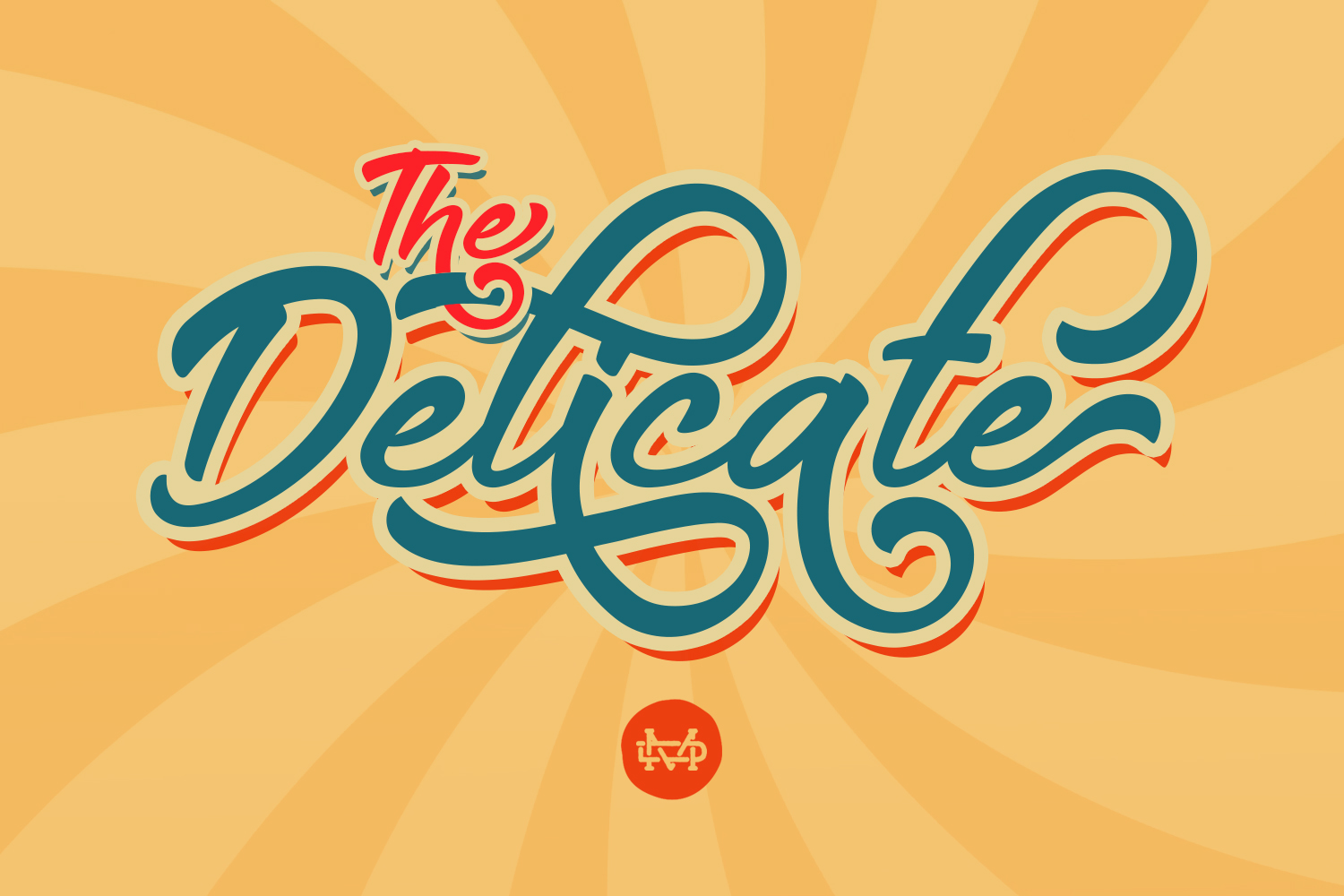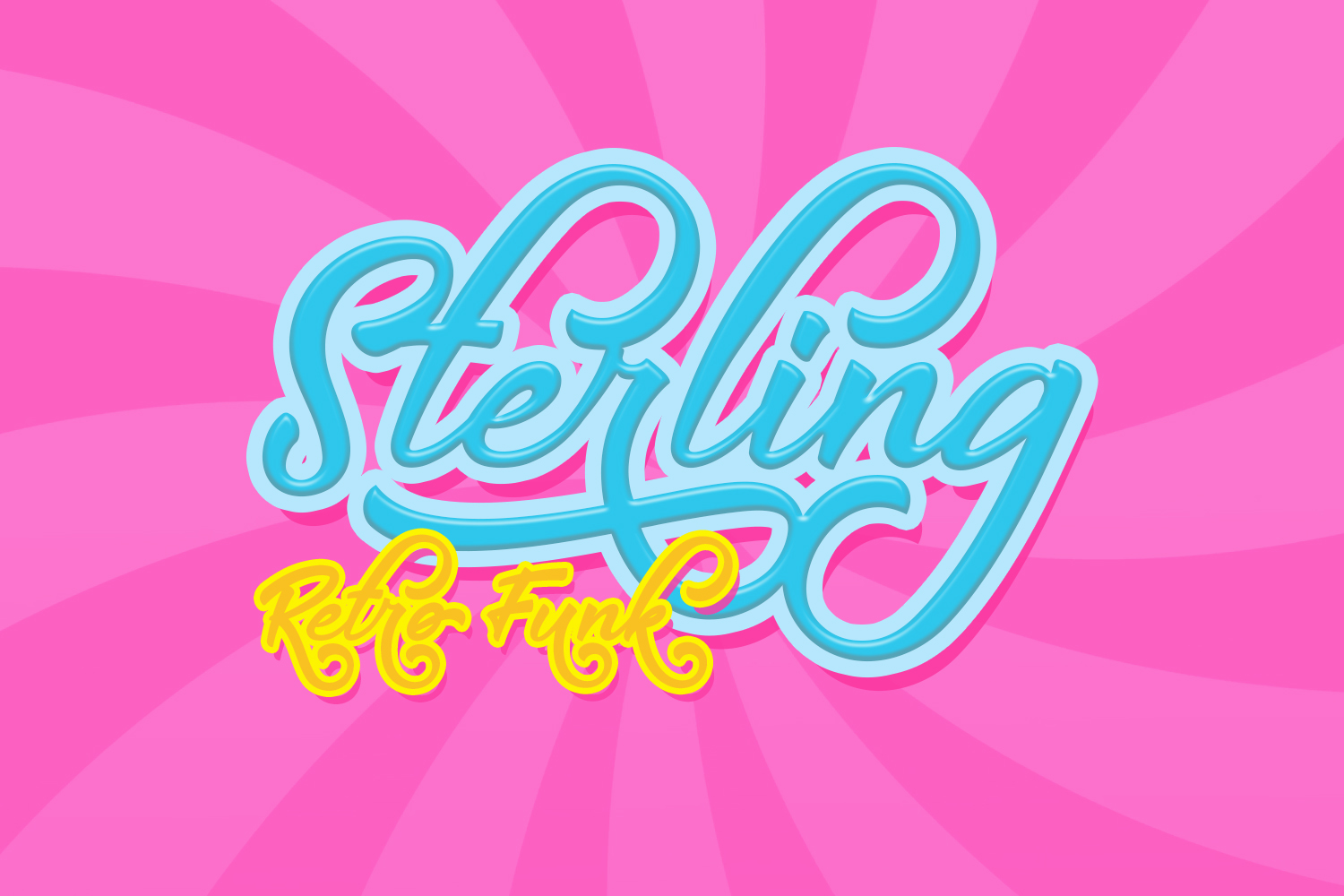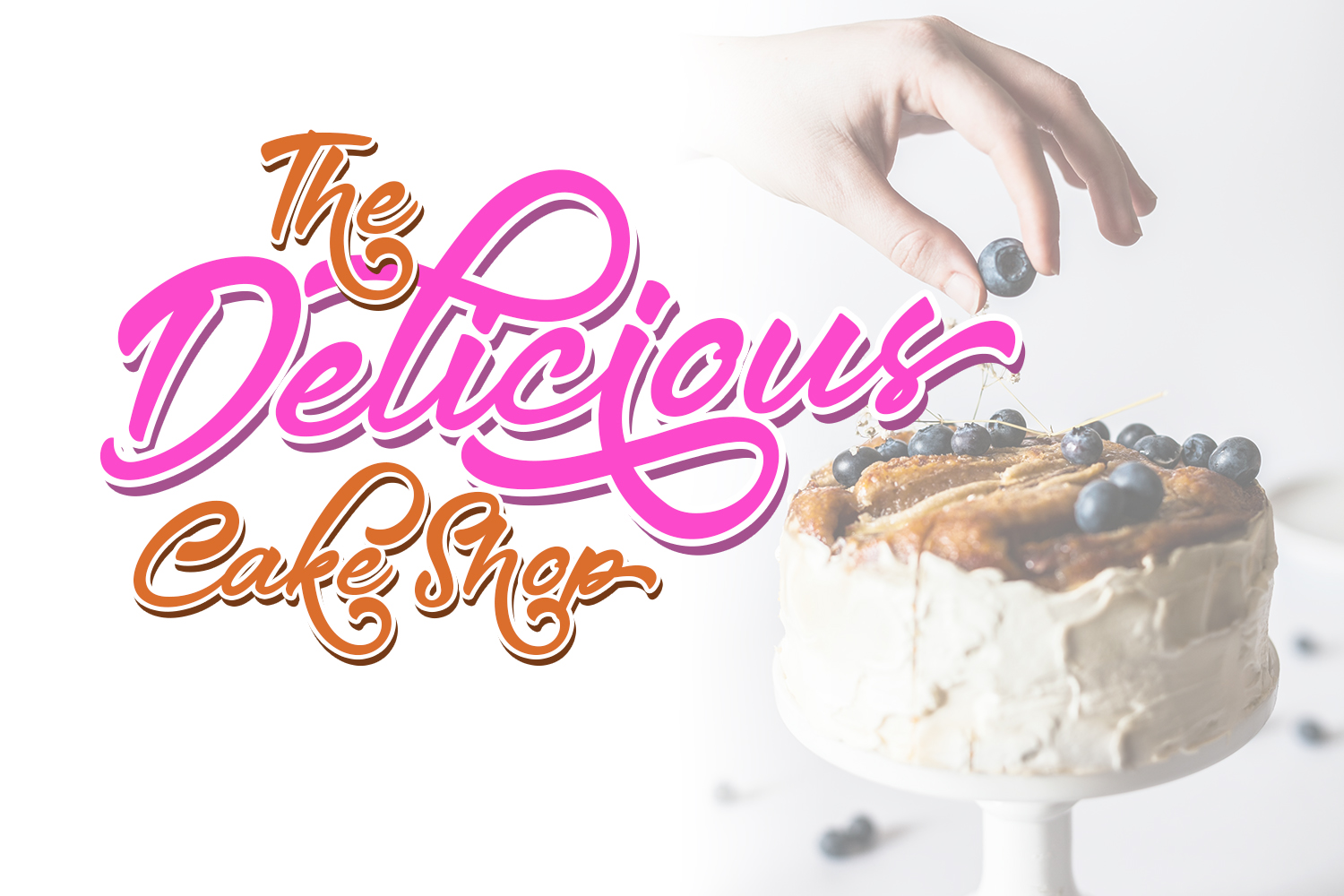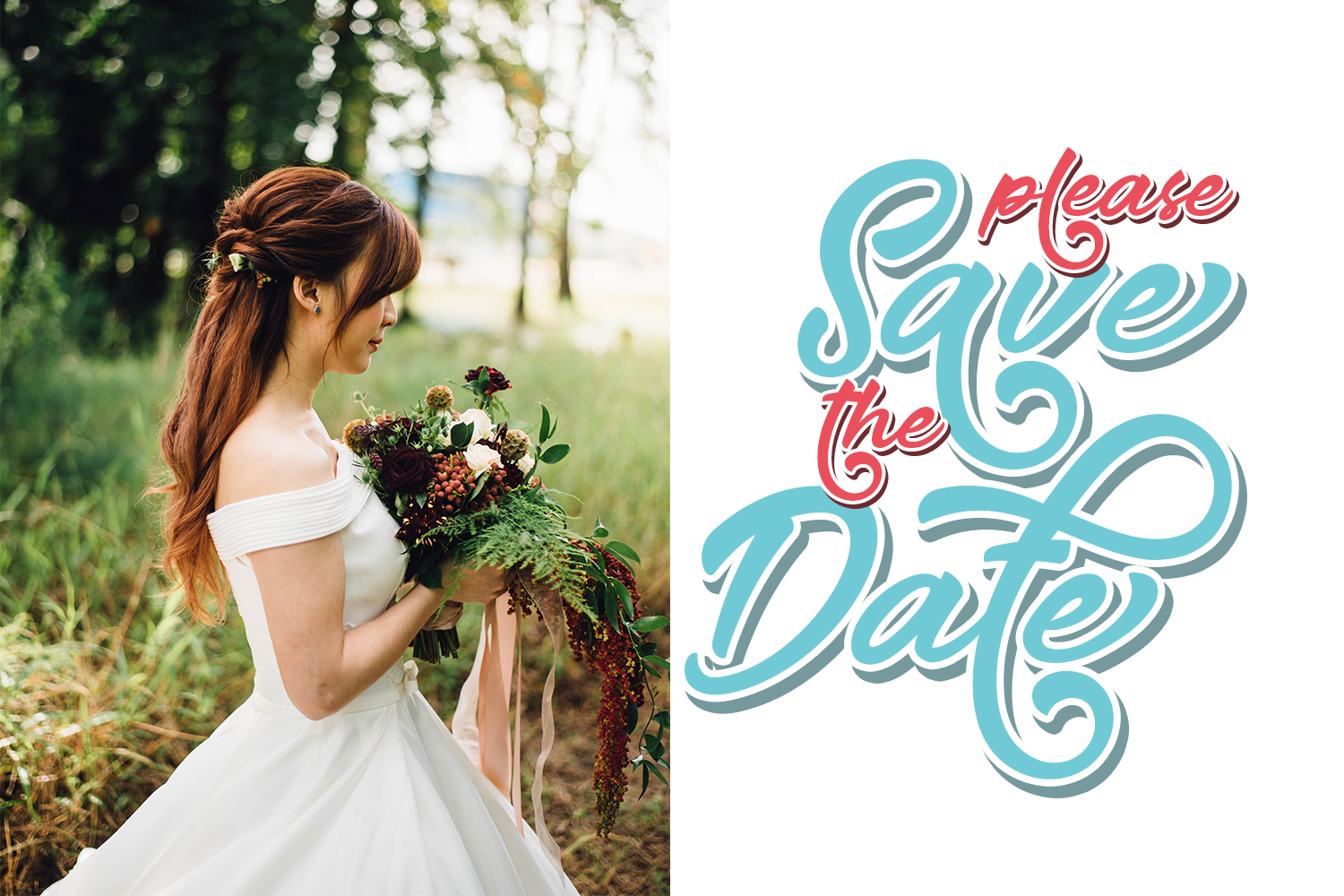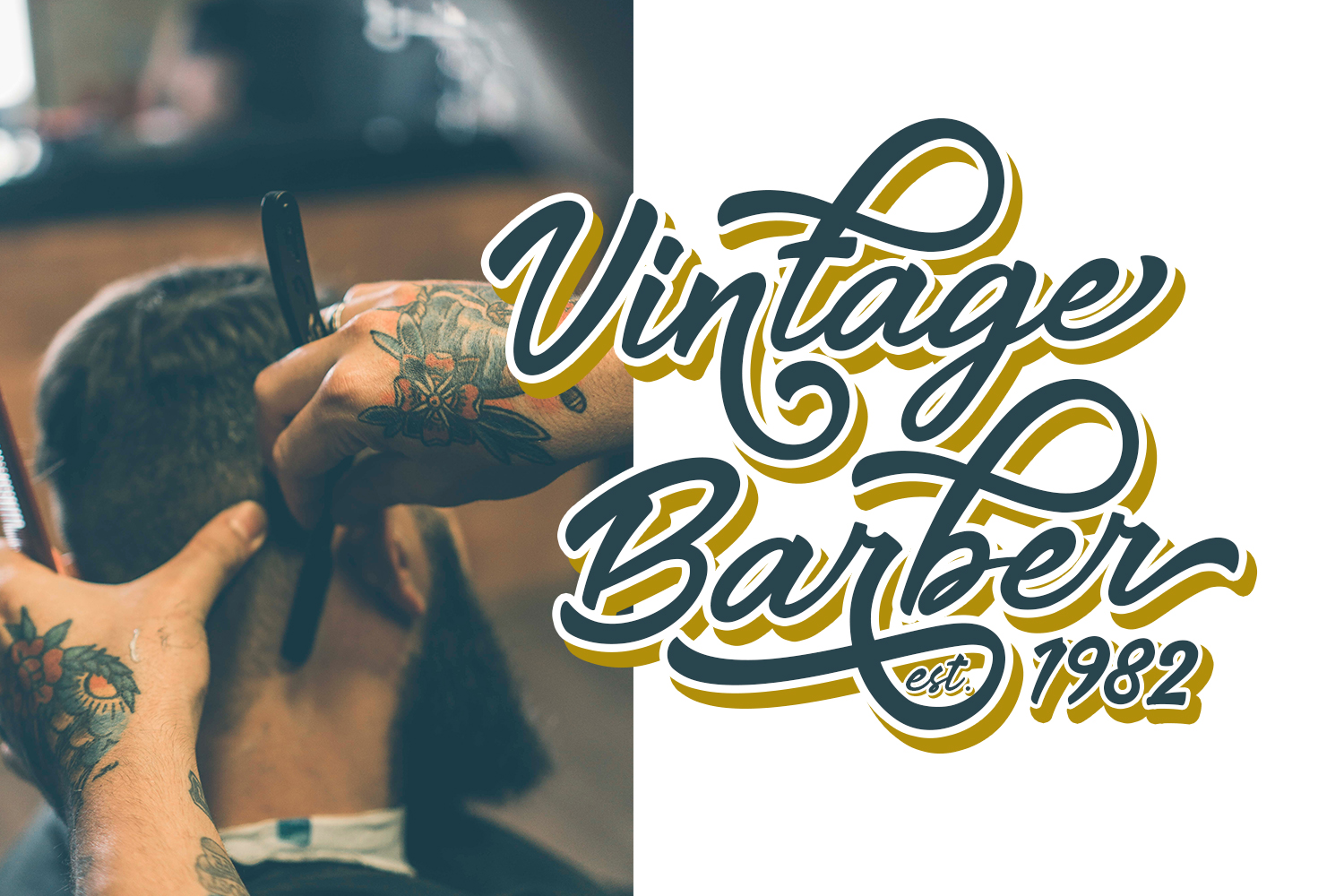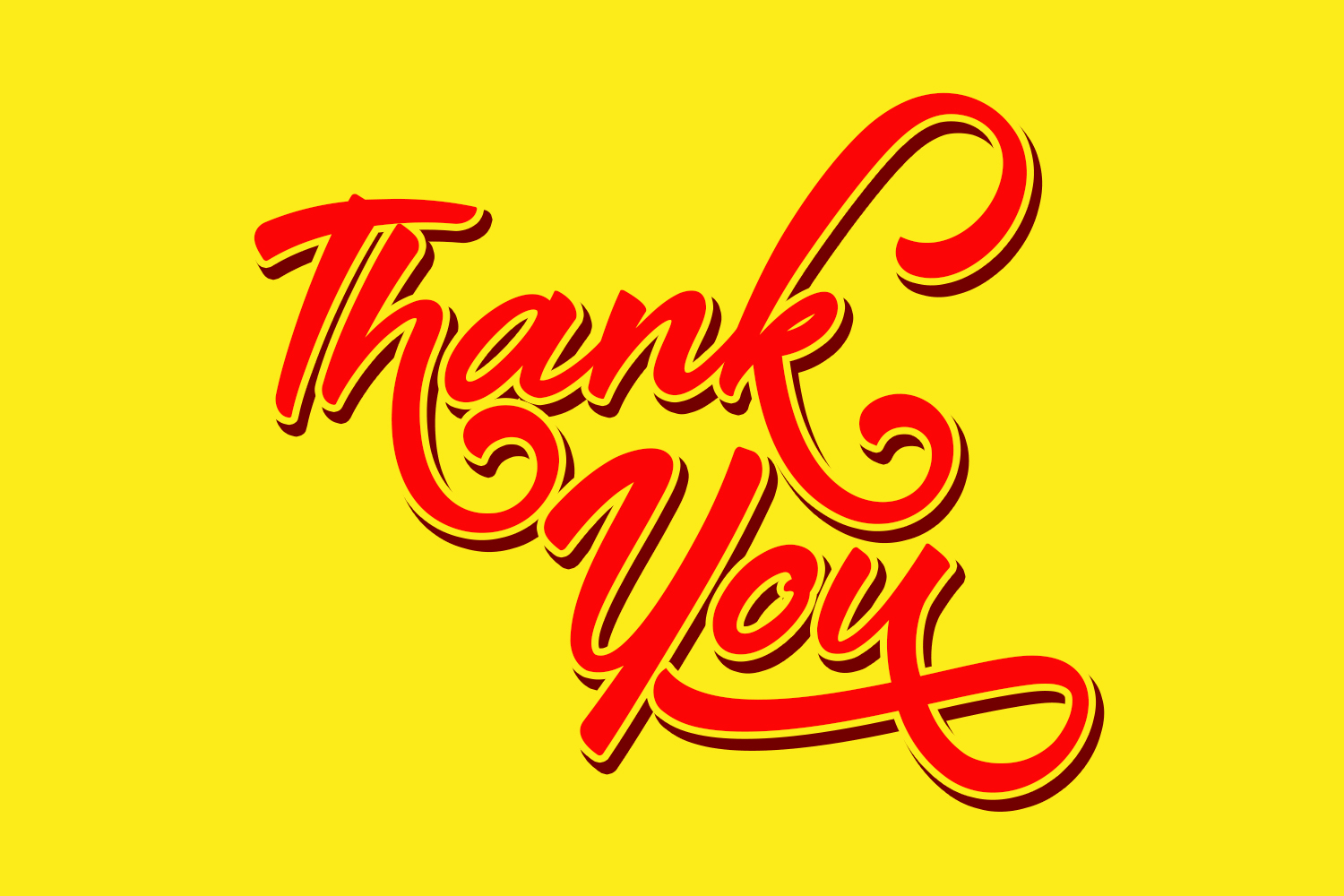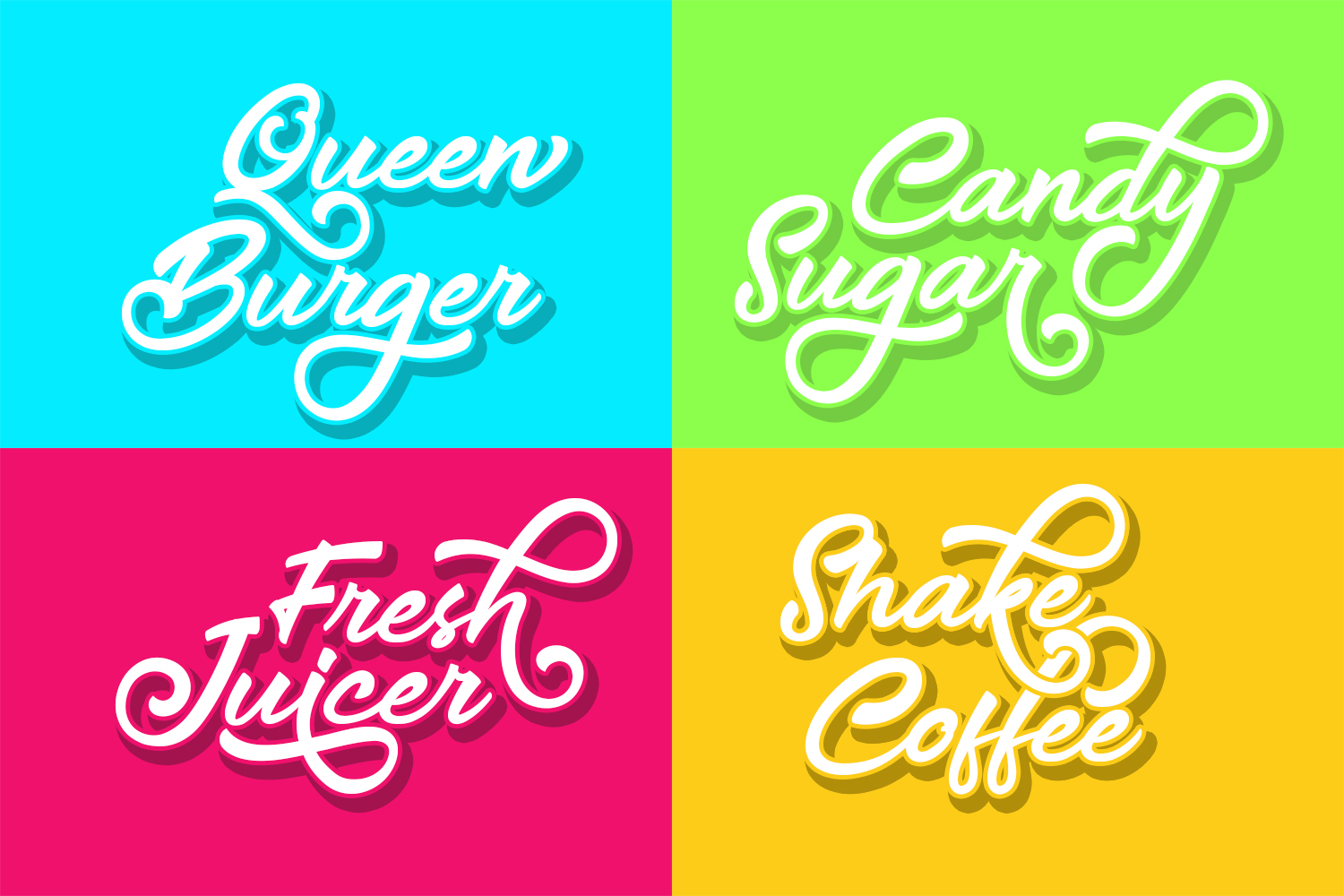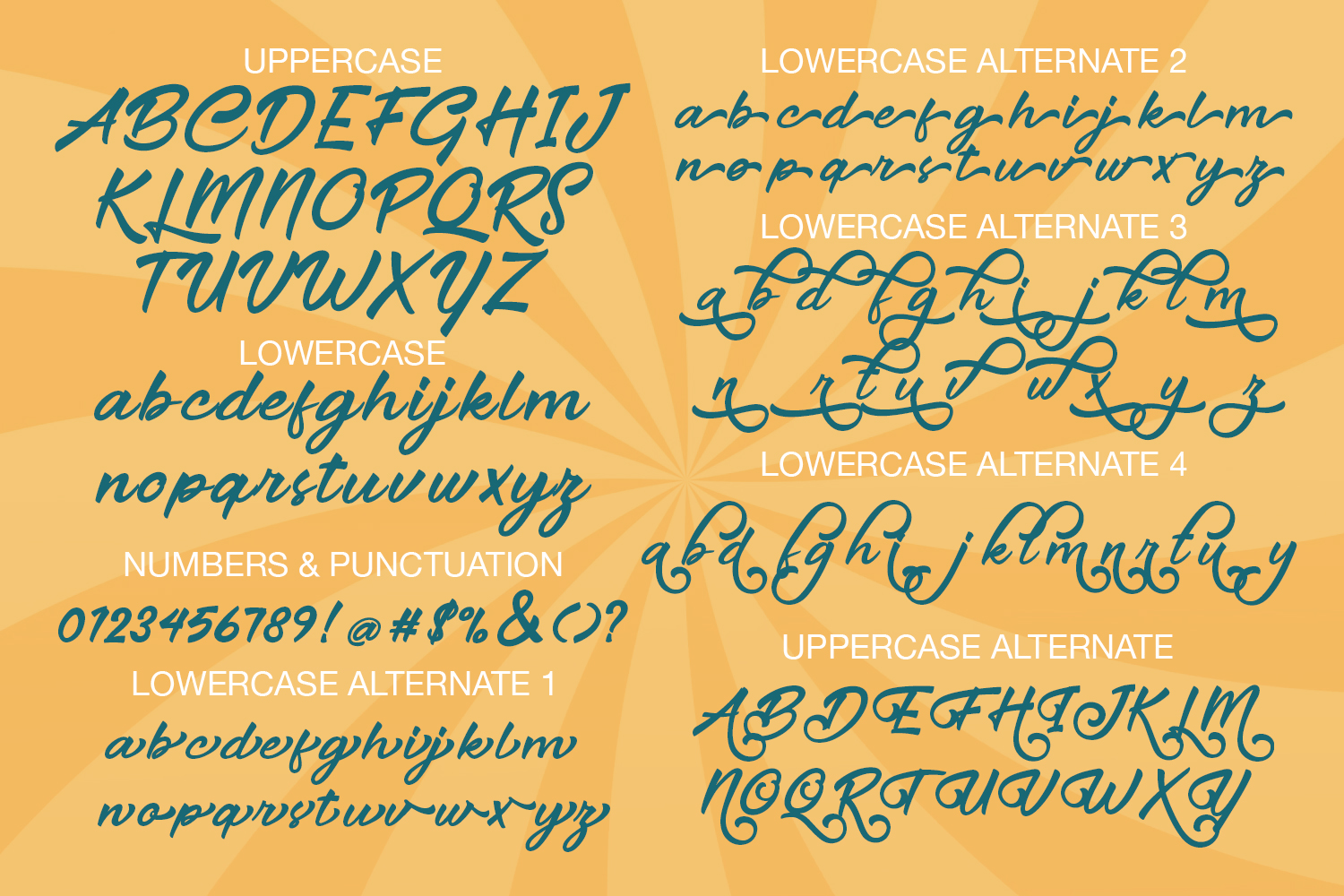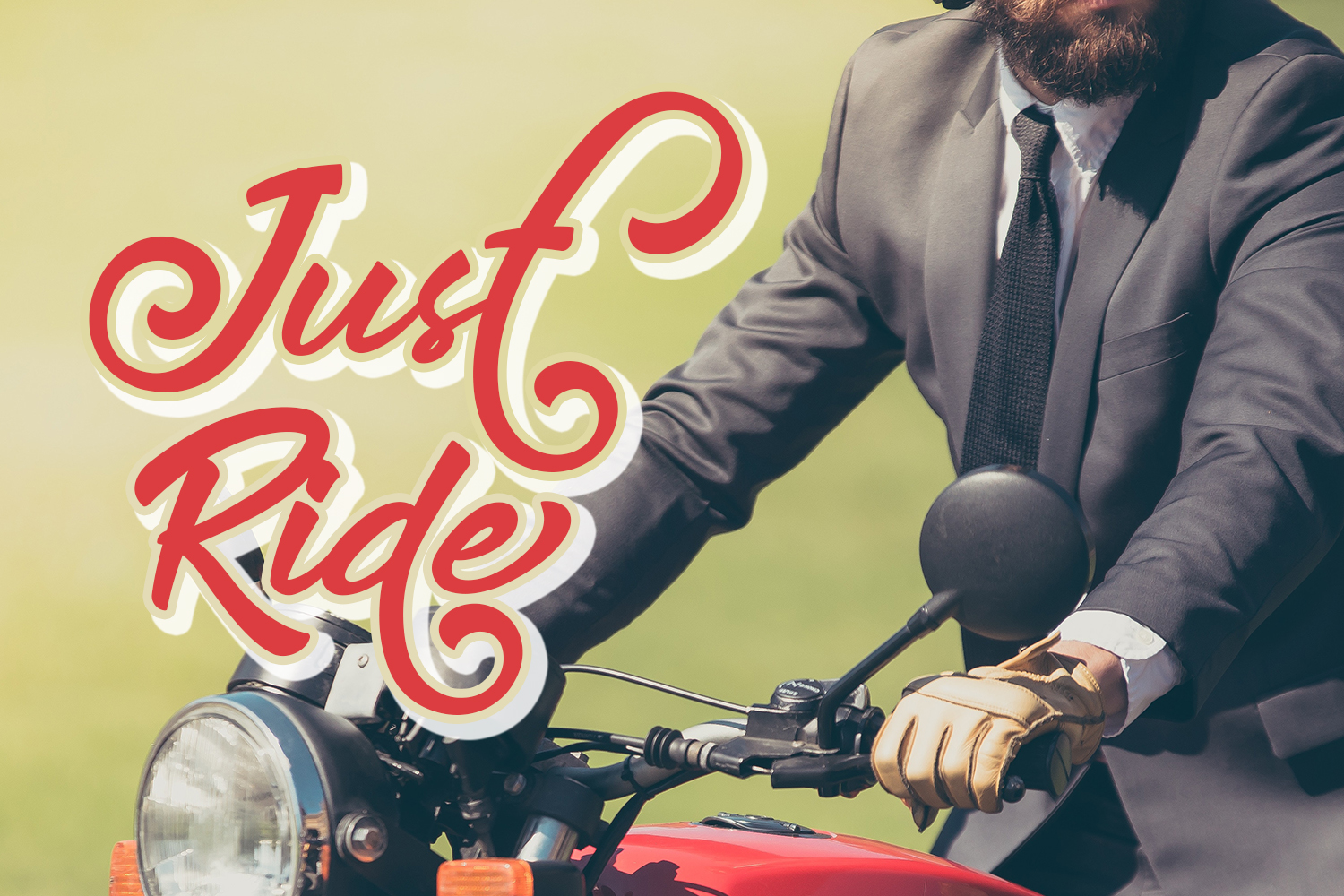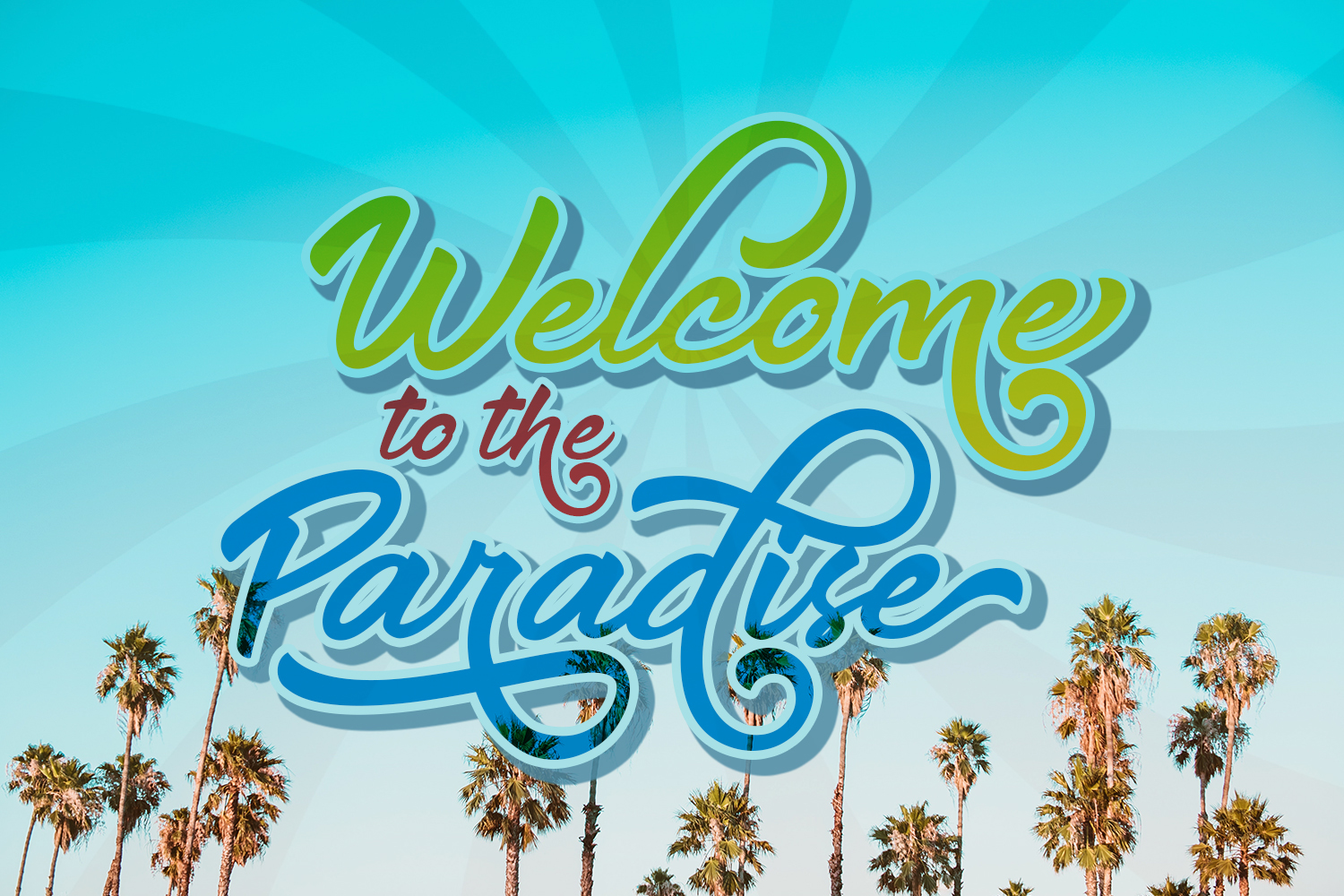
The Delicate is a classic bold script and this perfect for all your designs project, event and more.
– Uppercase & Lowercase
– Number & Symbol
– International Glyphs
– Alternative